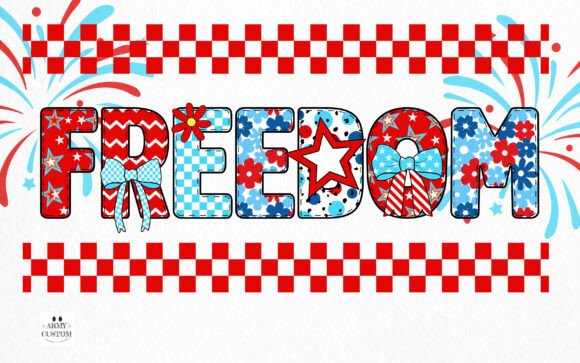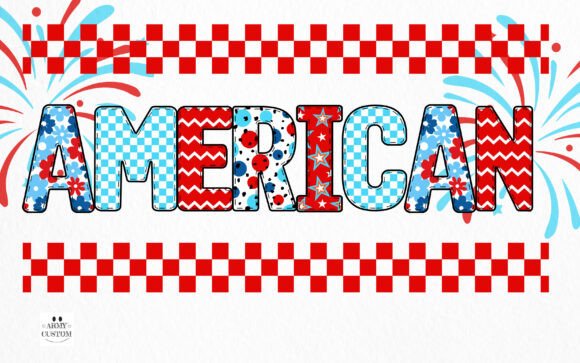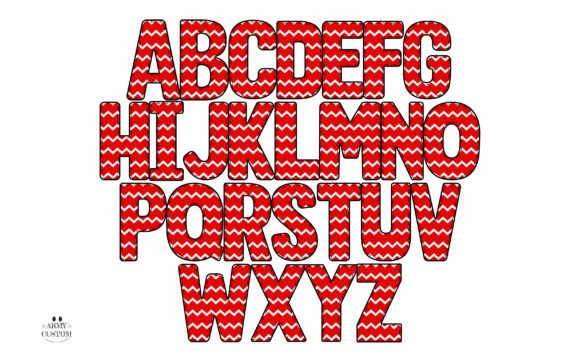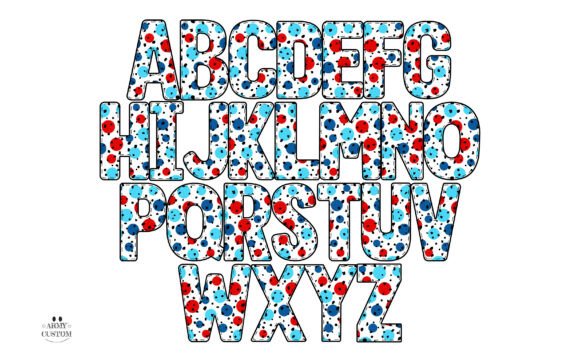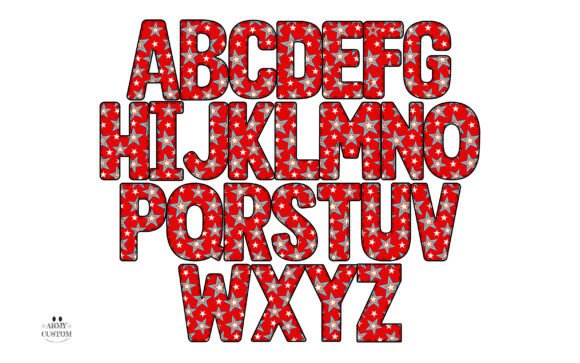
Introducing the American Coquette Font: A Patriotic Celebration in Typography
Immerse yourself in the spirit of patriotic celebrations with the American Coquette Font, a unique and captivating typography design that embodies the essence of Memorial Day American in every curve and line. This font is a tribute to the Land of the Free, brought to life through typography, and is sure to infuse an unmatched patriotism into your creative projects.
Design and Inspiration
The American Coquette Font is a masterpiece of design, inspired by the heart of the United States. Its curves and lines are carefully crafted to reflect the charm and spirit of American aesthetics, making it a standout addition to any design project. The font’s unique design ensures that it stands out from the crowd, giving your creative projects a distinctive and recognizable look.
The American Coquette Font is perfect for designers and crafters looking to add a touch of patriotism to their projects. Whether you’re working on a Memorial Day project, a Fourth of July design, or simply want to incorporate a sense of American pride into your work, this font is sure to deliver. Its unique design and versatility make it an excellent addition to any design library.
- Unique and captivating typography design
- Inspired by the heart of the United States
- Embodied the charm and spirit of American aesthetics
- Available in black and color versions